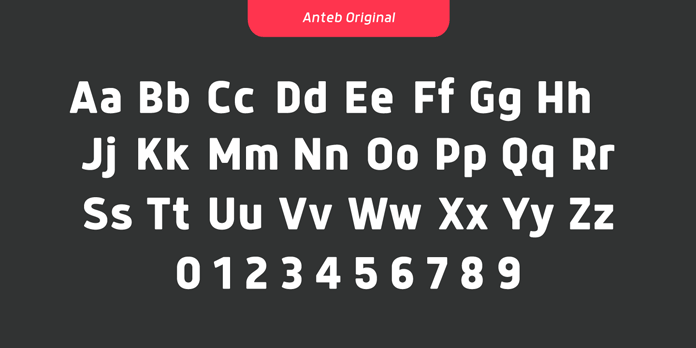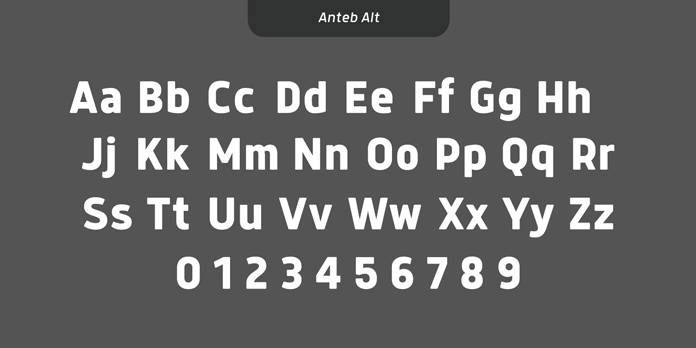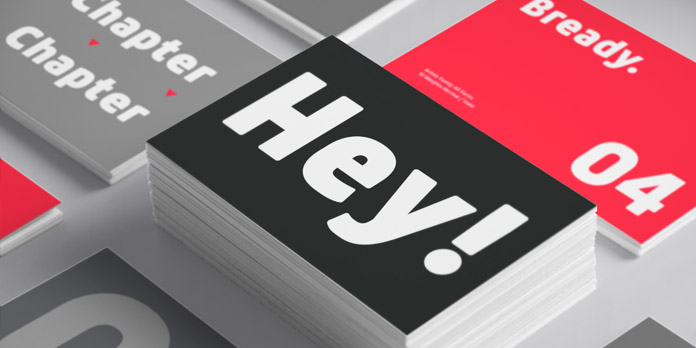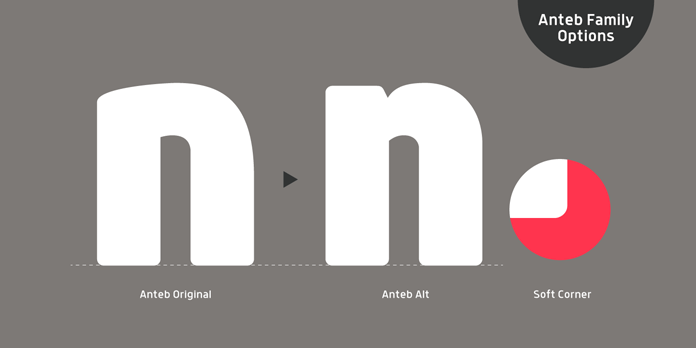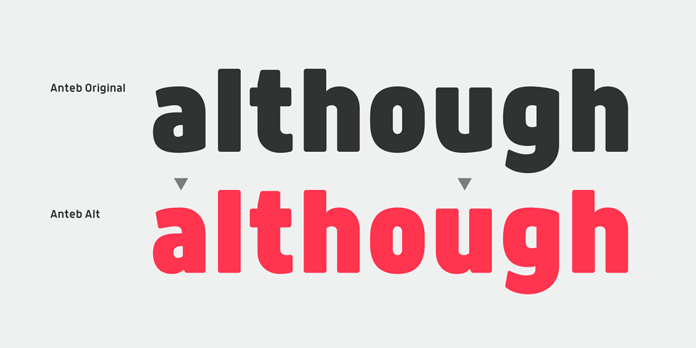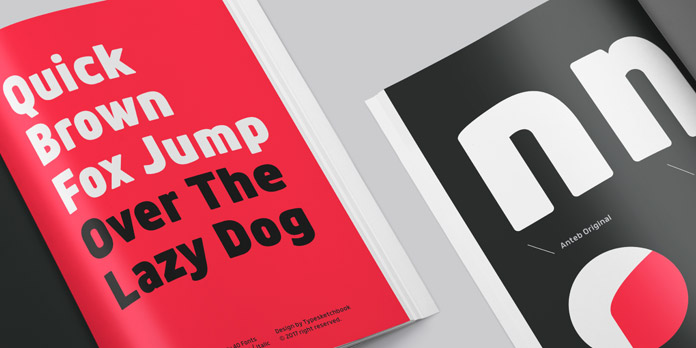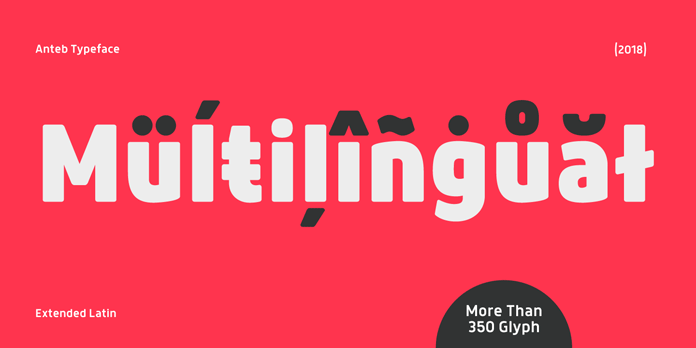
Anteb, a modern sans-serif font family with rounded edges.
Designed by Chatnarong Jingsuphatada and published by foundry Typesketchbook in 2018, Anteb is a new sans-serif font family with rounded edges. Equipped with 10 weights ranging from thin to extra black plus a full set of alternate characters, this family provides plenty of typographic possibilities. You can use it for both headlines and small text areas. Furthermore, Anteb supports multiple languages and is available as both web font and desktop font. For further information on all features and buying options, feel free to follow the link below.